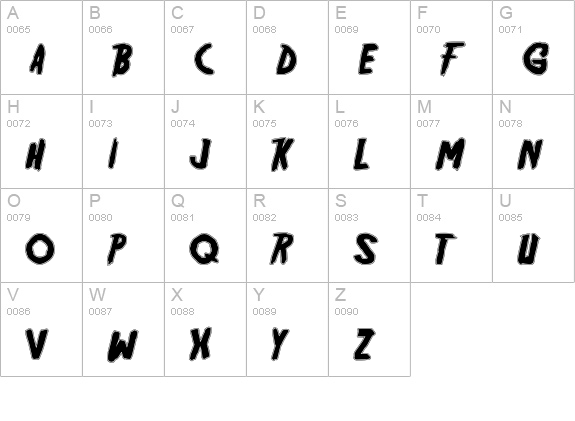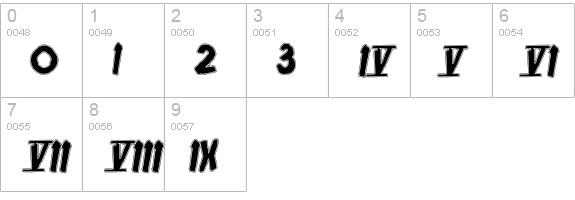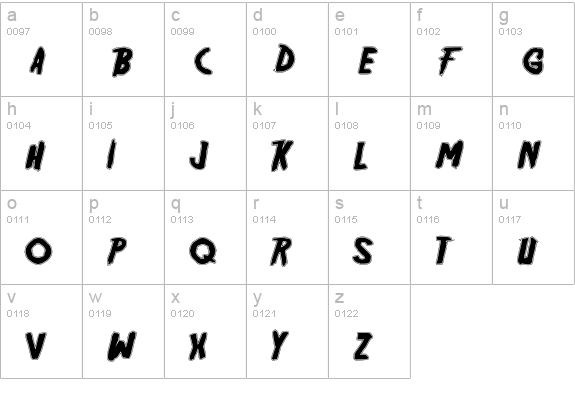
Friday13 Bonus NFI Font Details
Introducing the Friday13 Bonus NFI font, a captivating typeface that adds a touch of mystery and intrigue to any design project. With its unique blend of bold and intricate letterforms, this font is perfect for those seeking to make a bold statement or create a sense of anticipation. But what sets the Friday13 Bonus NFI font apart from others is not just its stunning aesthetics, but also the fact that it is available to download for free. Yes, you heard it right - this remarkable font can be yours without spending a penny. Thanks to its creators' generosity, the Friday13 Bonus NFI font can be freely obtained at FontsMarket.com. Whether you're a professional designer looking to enhance your typography arsenal or a casual user in search of a distinctive font for personal projects, the Friday13 Bonus NFI font offers endless possibilities. Its versatility makes it suitable for a wide range of applications, from logos and branding to posters, websites, and social media graphics. With its sleek and modern appearance, the Friday13 Bonus NFI font exudes a sense of sophistication and allure. Its carefully crafted details and intricate lines add depth and character to any text, making it visually captivating and engaging. So why wait? Unlock your creativity and elevate your designs with the Friday13 Bonus NFI font. Download it now, free of charge, at FontsMarket.com and let your imagination run wild. Embrace the enchantment of this one-of-a-kind typeface and discover the endless design possibilities it holds.